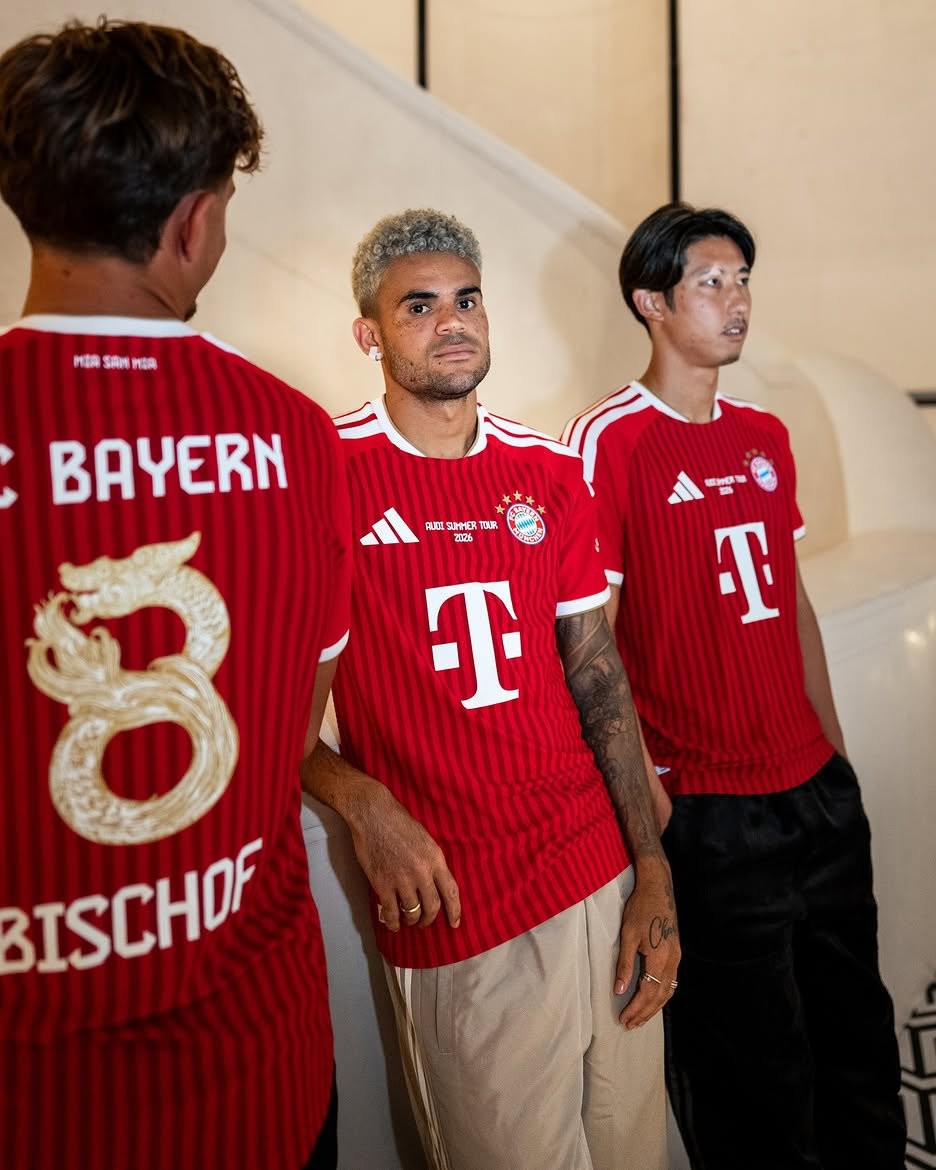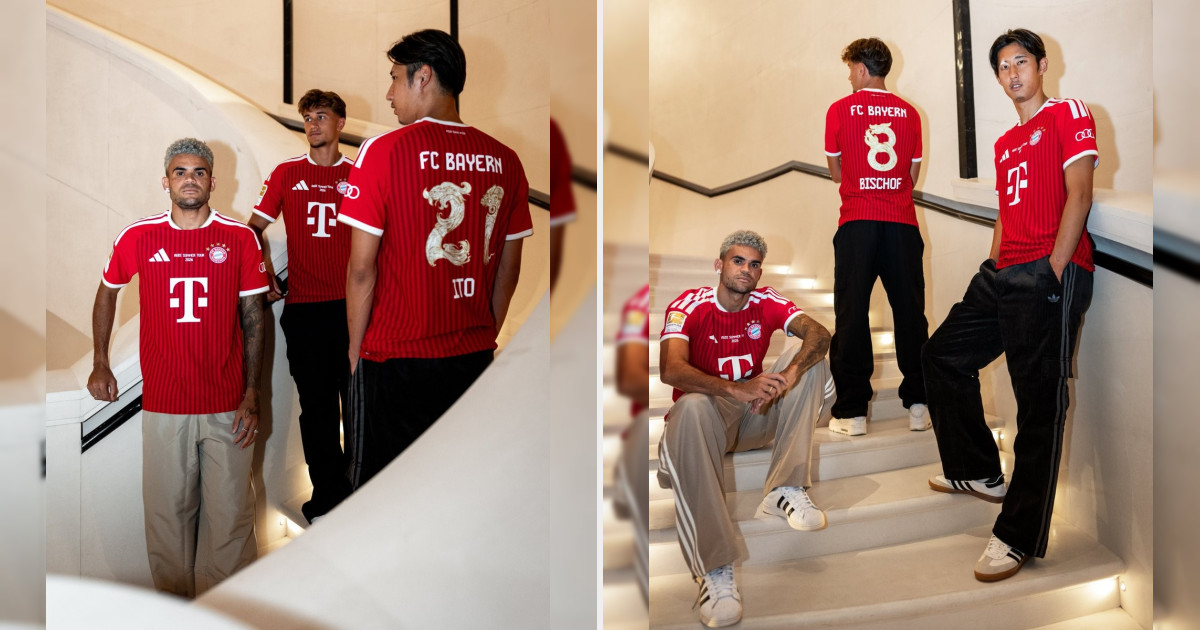
Bayern Munich Unveil Special Dragon Font for Hong Kong Pre-Season Match
FC Bayern Munich has revealed a special-edition nameset for their 26-27 home kit, created specifically for their pre-season Audi Summer Tour match against Aston Villa in Hong Kong. The one-off design updates the back of the home shirt as part of the German champions' pre-season tour activities across Asia.
The centerpiece of the special lettering is an intricate golden dragon motif incorporated directly into the numbers on the back of the jersey. While the dragon artwork decorates the numbers, the player names and top FC Bayern text retain the standard white colorway. In addition, the kit features a match detail inscription reading Audi Summer Tour 2026 placed centrally on the chest between the adidas logo and the club crest.